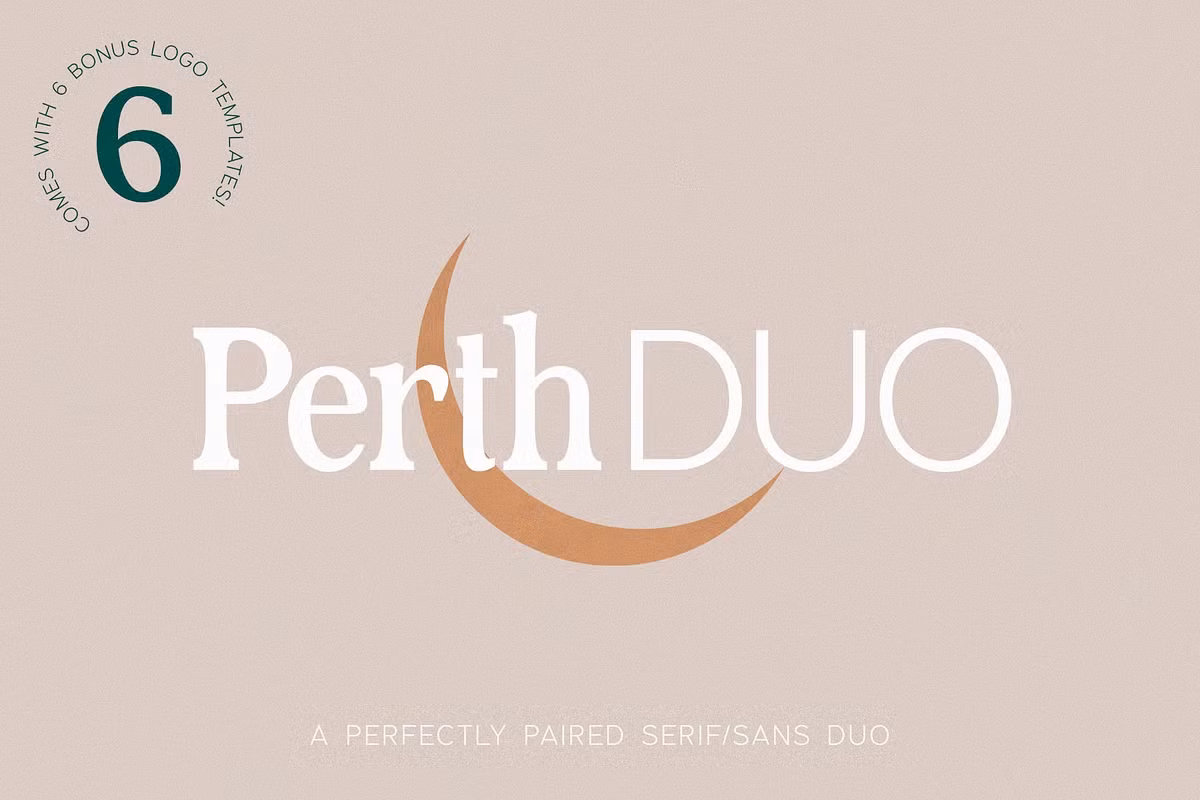
Perth Serif & Sans Duo Font Free Download is a stylish and versatile font pairing that brings together the timeless elegance of a classic serif with the clean simplicity of a modern sans serif. Perfect for branding, editorial layouts, social media content, packaging, wedding invitations, and minimalist design projects, this duo gives you the flexibility to create cohesive and sophisticated typography.
The Perth Serif adds a refined, upscale touch with its elegant curves and sharp contrast, while the Perth Sans provides clarity and balance with its straightforward, contemporary form. Together, they make a harmonious pair that works beautifully across headlines, body text, logos, and more.